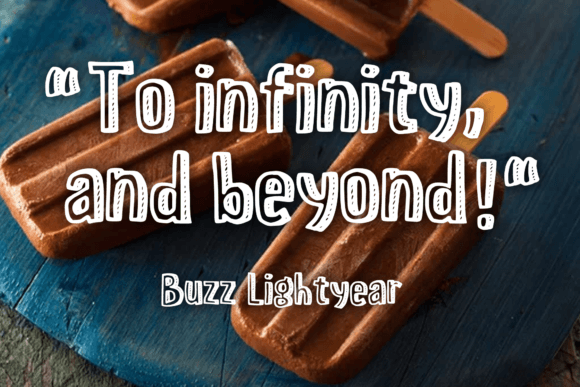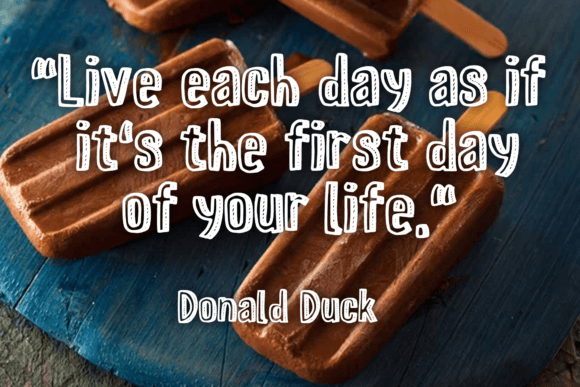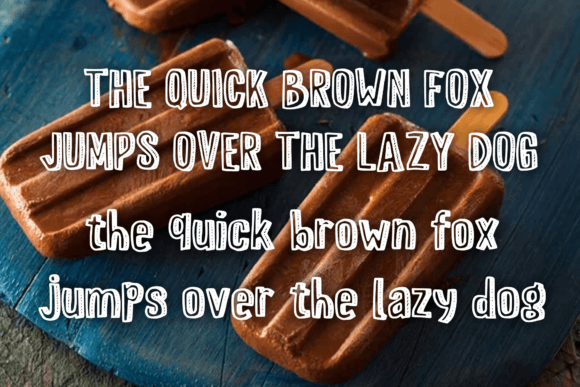
Introduction to Popsicle Alternative Font
Do you remember the excitement of rummaging through your parent’s old craft box, searching for the perfect materials to bring your imagination to life? For many creatives, those moments sparked a lifelong passion for art and design. Today, we’re thrilled to introduce you to the Popsicle Alternative Font, a fun and quirky display font that’s sure to ignite your creativity and inspire your next project.
Whether you’re designing a t-shirt for a kids’ birthday party or creating a sticker for a greeting card, the Popsicle Alternative Font is the perfect addition to your design resource arsenal. Its high-quality design and transparent background make it easy to use in a variety of creative projects, from digital designs to print materials. With its funky and sketchy style, this font is sure to add a casual touch to any project, making it a valuable asset for designers looking to add some personality to their work.
Key Features of Popsicle Alternative Font
- High-quality design resource with a unique and creative style, perfect for various projects.
- Transparent background, allowing for seamless integration into any design project.
- Designed to be highly legible and versatile, suitable for use in a variety of creative projects, from digital designs to print materials.
- Perfect for designers, artists, and creatives seeking a unique and high-quality font for their next project.
Honest Review: Popsicle Alternative Font
I recently stumbled upon the Popsicle Alternative Font, a high-quality design resource that caught my eye. I was drawn to its unique style and versatility, making it perfect for a variety of creative projects.
- ✨ The font is highly customizable, allowing for endless possibilities in terms of color and layout.
- ✨ The transparent background makes it easy to integrate with other design elements.
- ⚠️ The font may not be suitable for all types of projects, particularly those that require a more formal or traditional look.
- ⚠️ Some users may find the font’s unique style to be a bit too playful or distracting.
Overall, I’m impressed with the Popsicle Alternative Font. It’s a great addition to any designer’s toolkit, and I can see it being used in a wide range of creative projects. If you’re looking for a fun and versatile font, this is definitely worth checking out.
Getting the Most Out of Popsicle Alternative Font
To get the most out of this versatile font, experiment with different font sizes, colors, and combinations to create unique and eye-catching designs.
The Popsicle Alternative Font is ideal for various creative projects, including:
- Food and drink branding
- Children’s party invitations
- Summer-themed designs